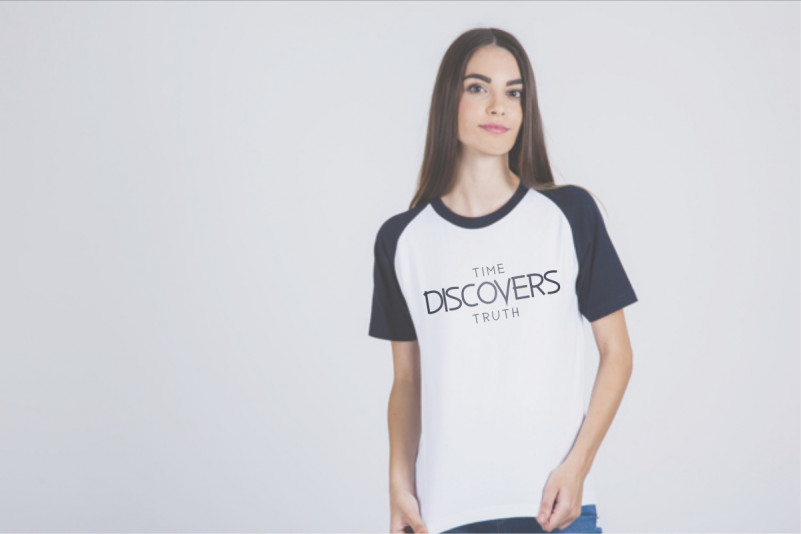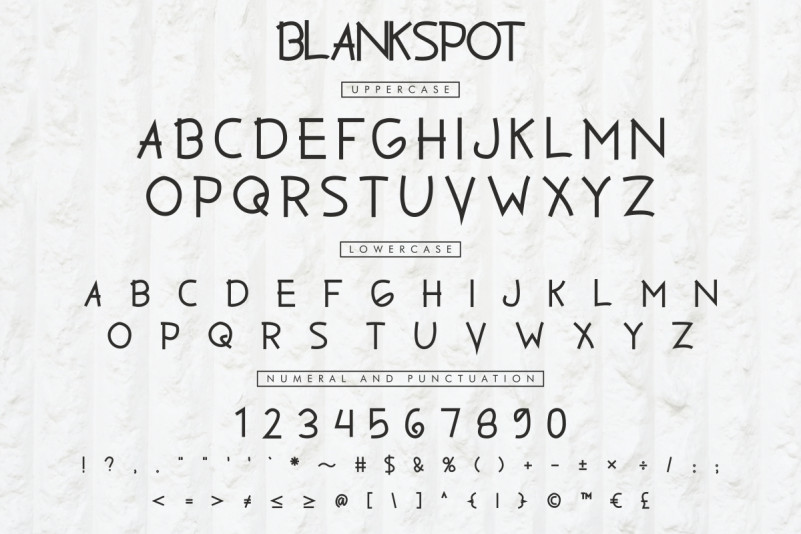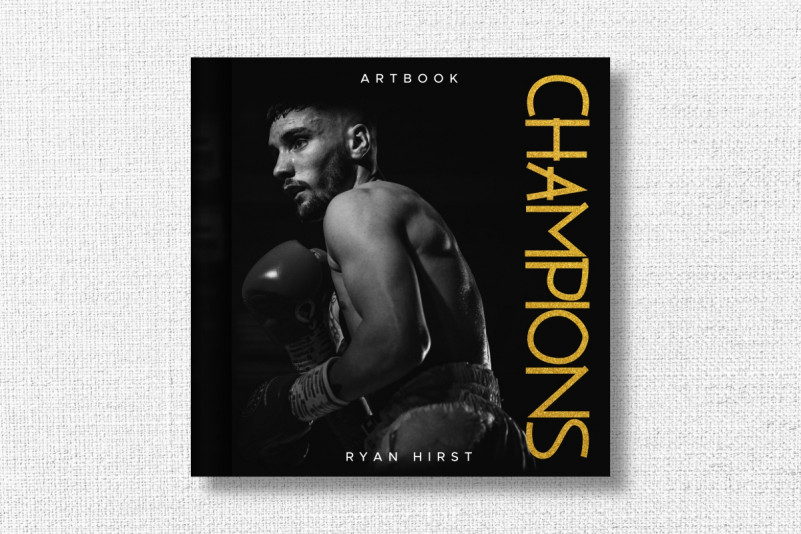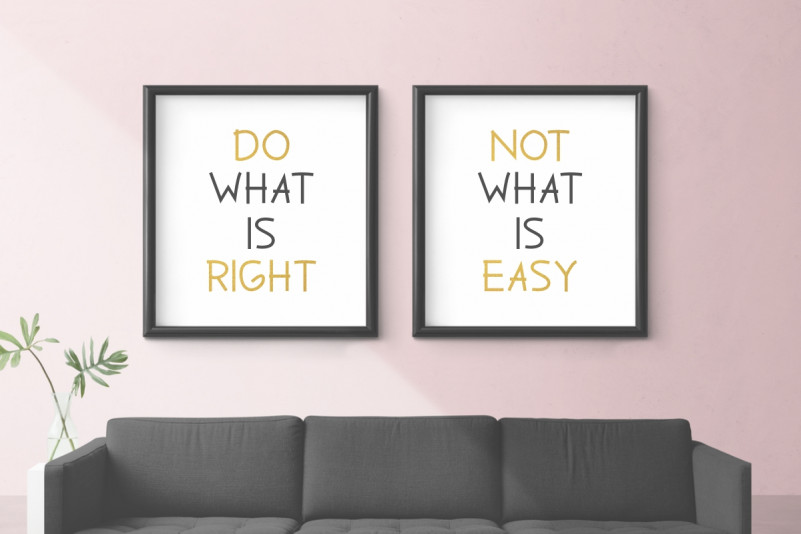
Blankspot Sans Serif Font
Blankspot Sans Serif Font is a new modern Sans Serif diaplsy font family with unique style. It has a Futuristic, fresh, elegant, natural and stylish glyphs. Blankspot Font will be perfect for branding, logo, photography and signature. It is so elegant, classy, strong and beautiful.